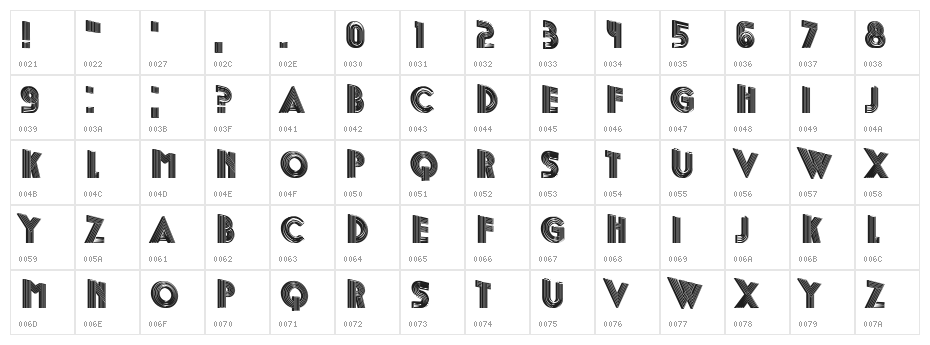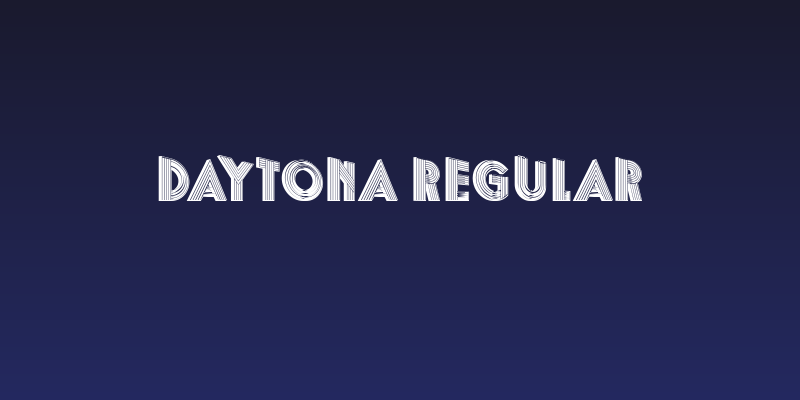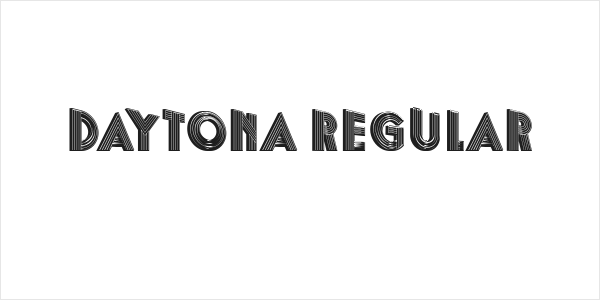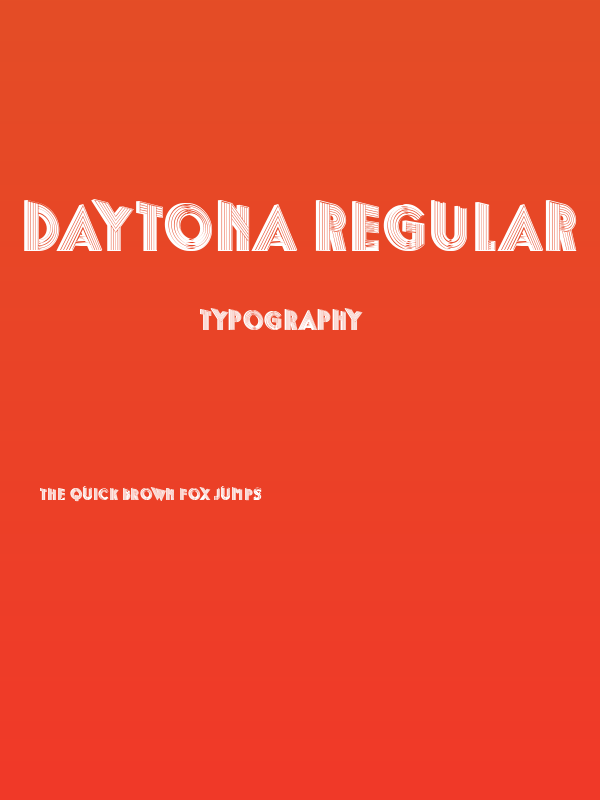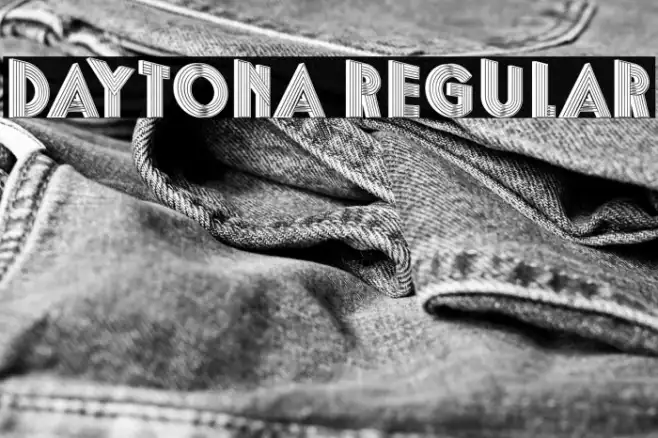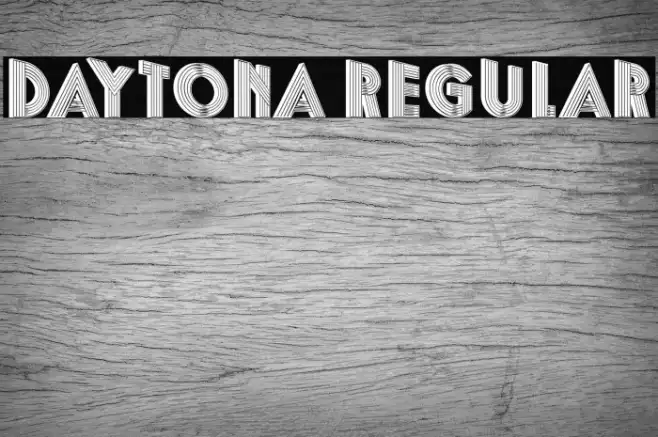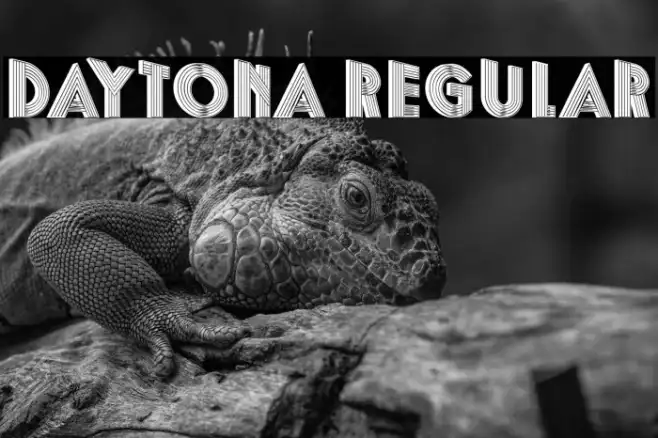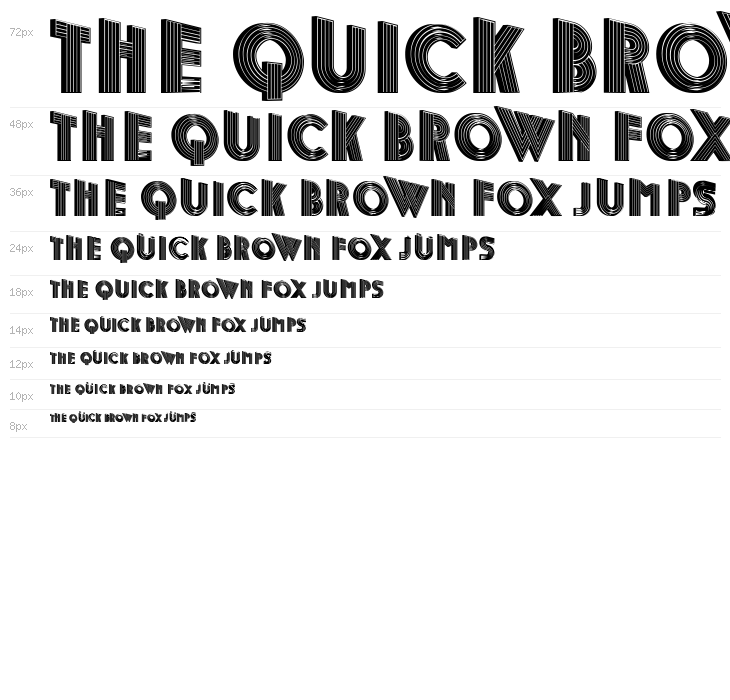
Daytona Regular Font
Daytona Regular Description
This font features a bold and striking design with a unique striped pattern that runs through each character. The geometric shapes and clean lines give it a modern and dynamic appearance, making it stand out in any design. The uppercase and lowercase letters maintain a consistent style, while the numbers and special characters complement the overall aesthetic. This font is perfect for creating eye-catching headlines and logos, adding a touch of sophistication and flair to any project.
| Proposed Projects | Ideal for branding, posters, and advertising campaigns that require a bold and memorable visual impact. |